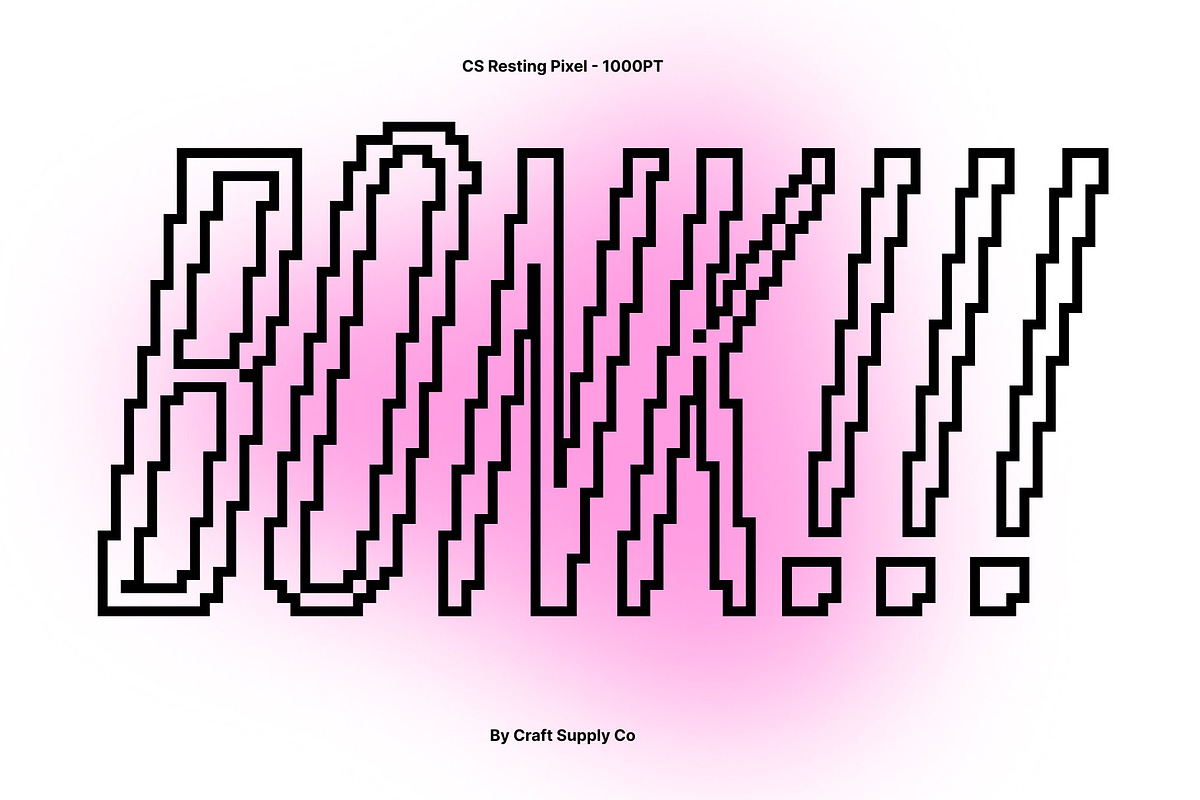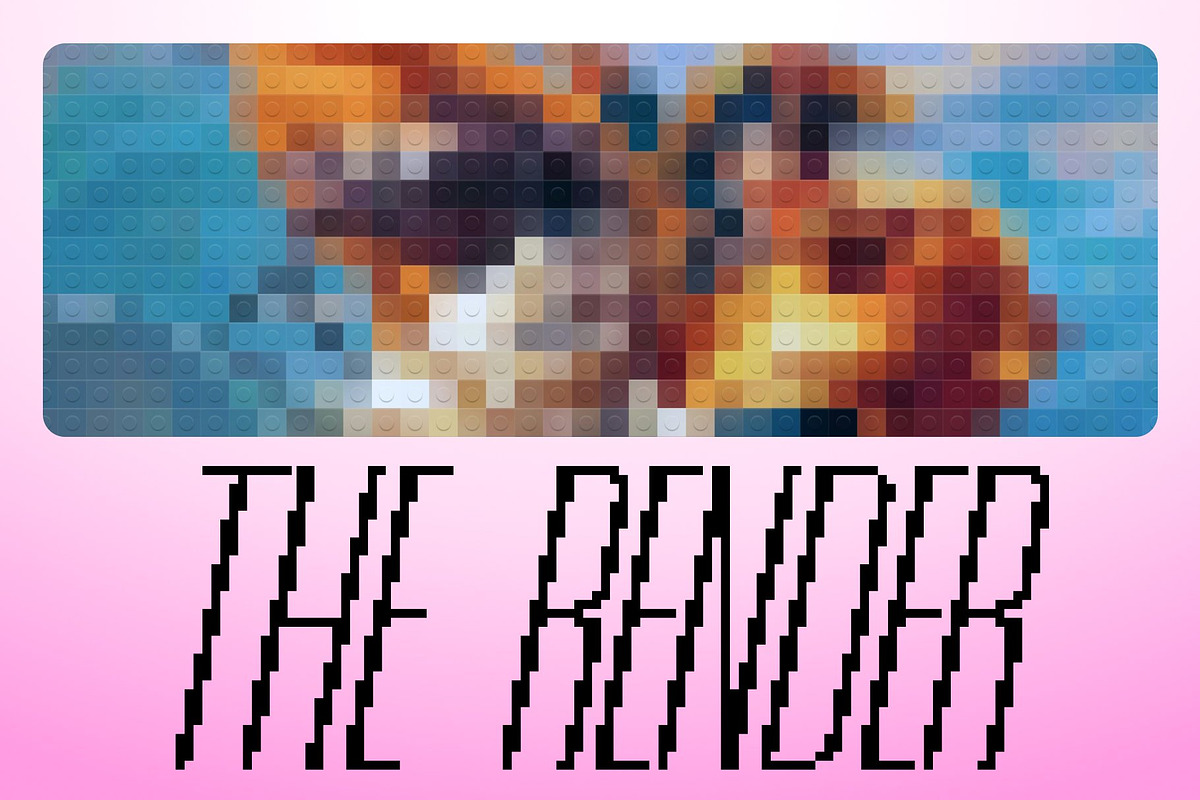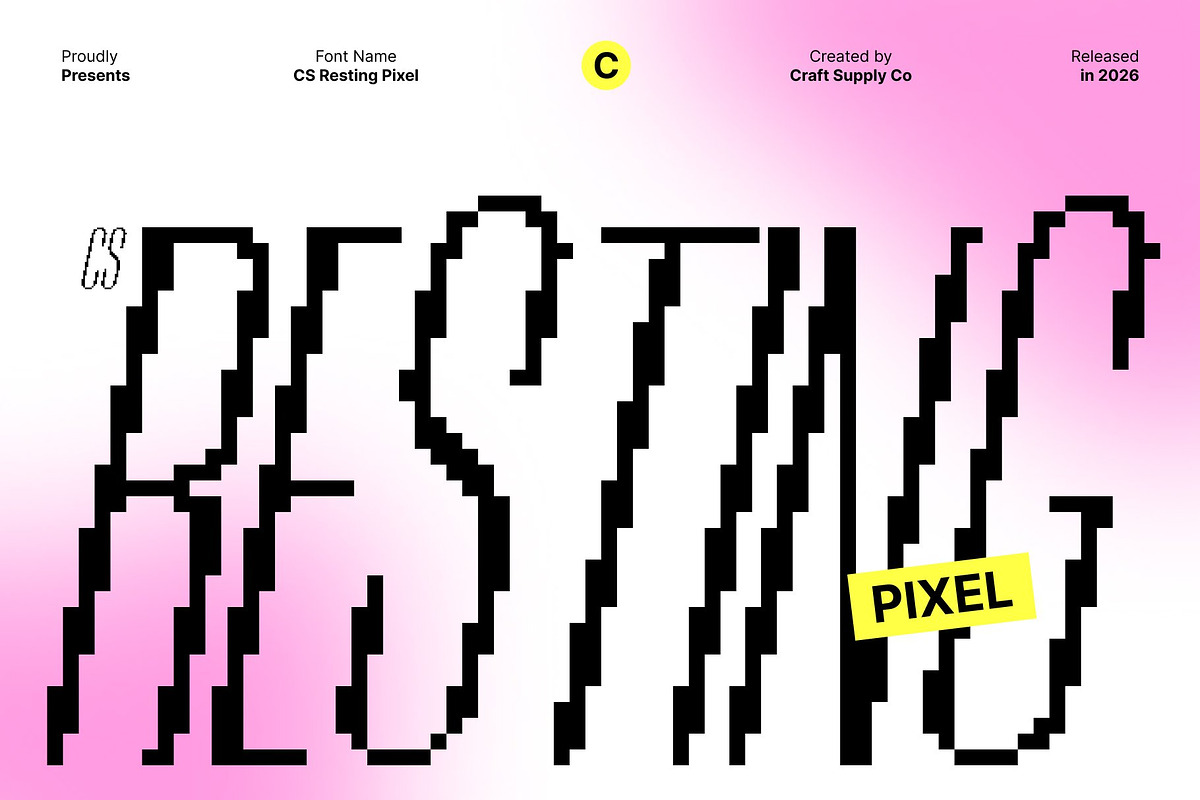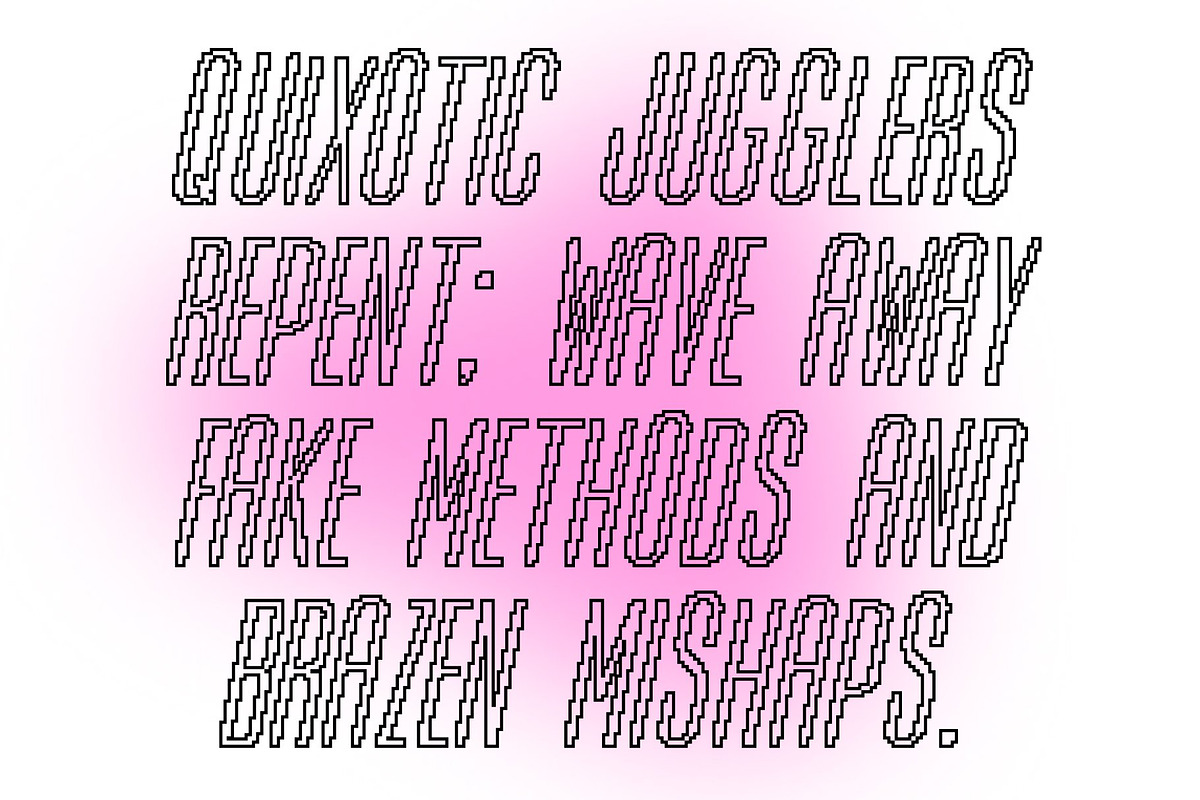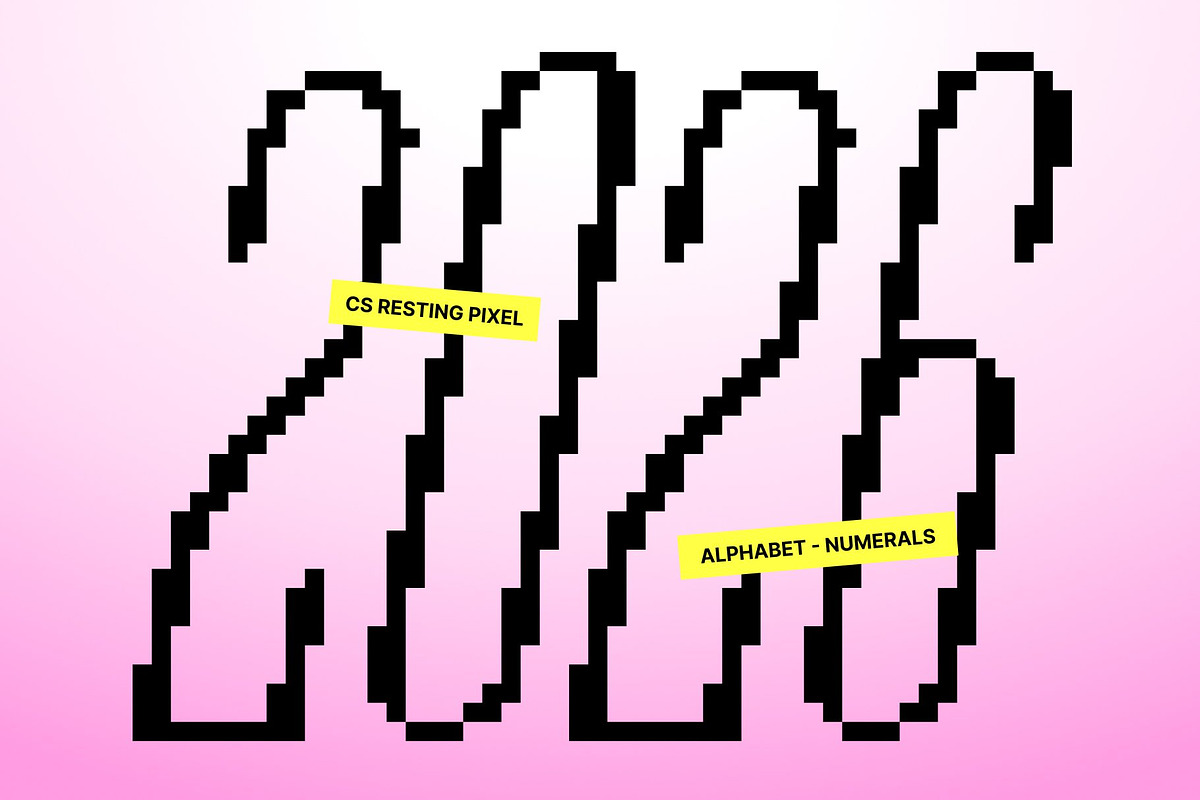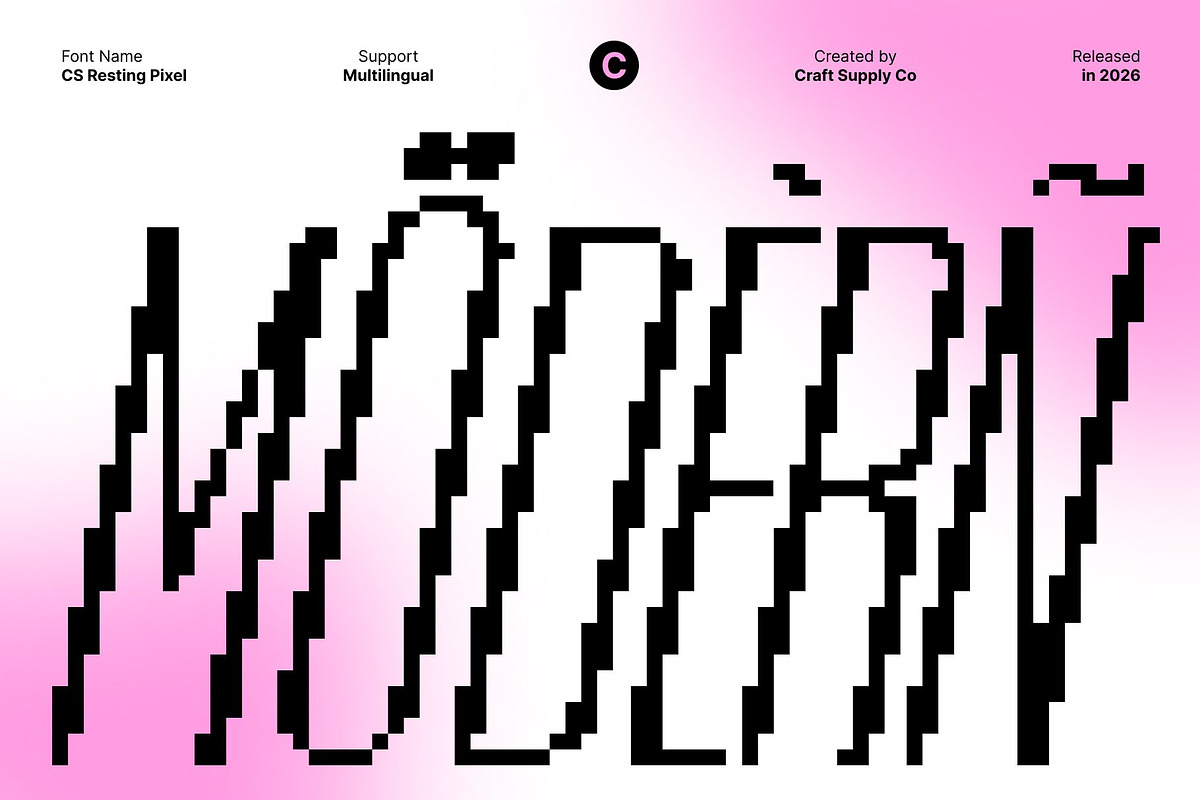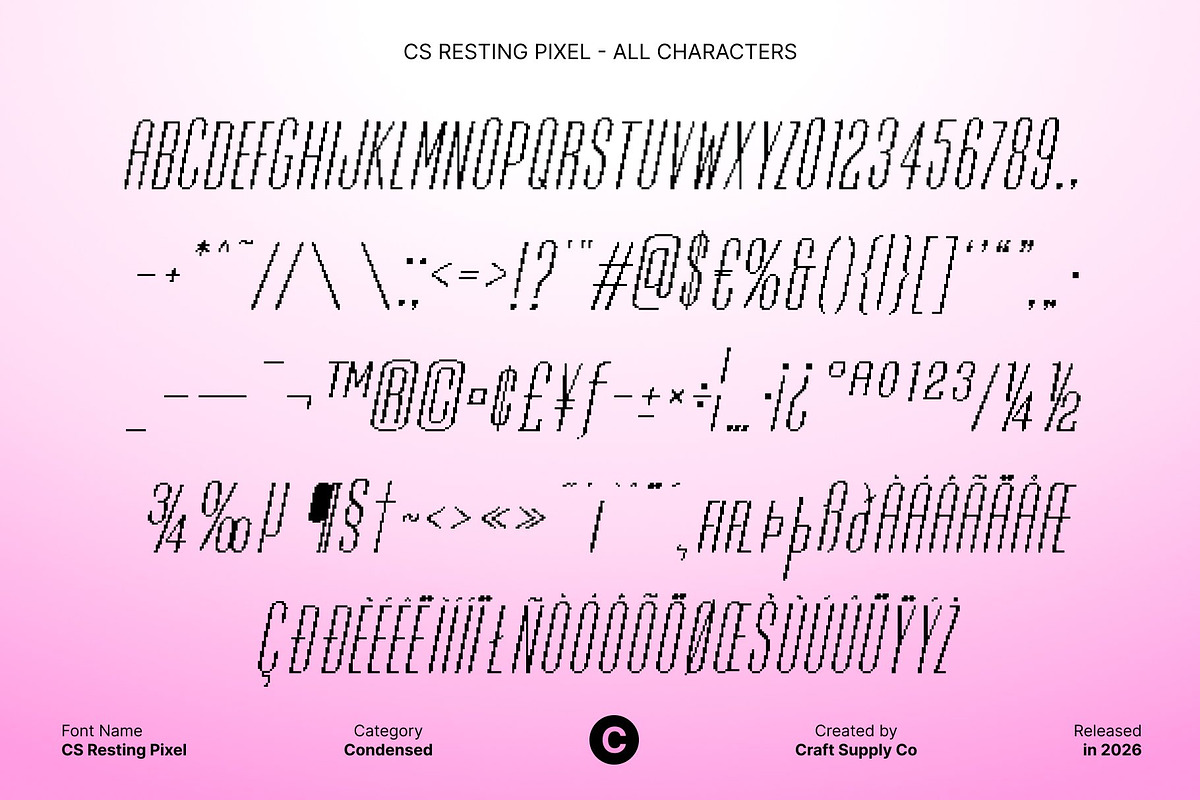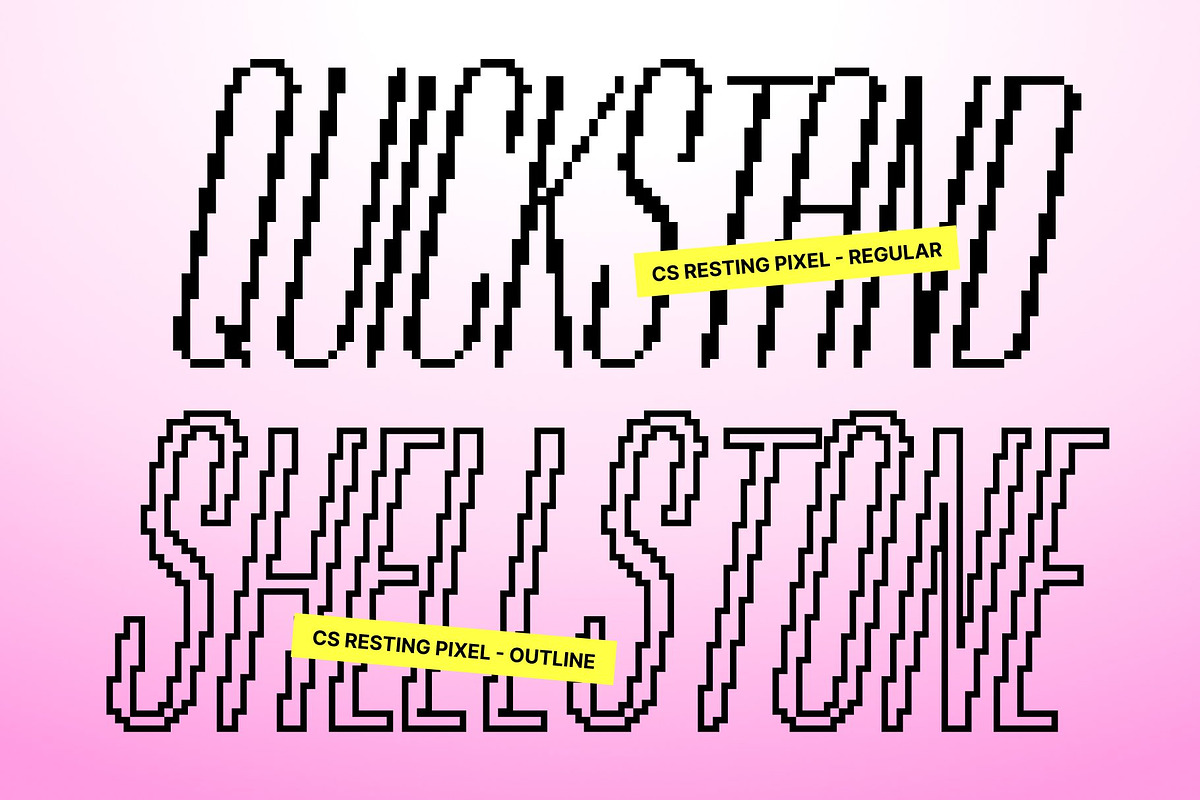
CS Resting Pixel
CS Resting Pixel – Condensed Sans Serif: Compact Strength with Modern Appeal
Modern Condensed Sans Serif with Pixel Precision This is a compact condensed sans serif font designed for confident typography in tight spaces, refined with a distinctive pixel structure. Its clean lines and contemporary construction deliver strong visual impact, while the pixel detailing adds a sharp digital texture that feels modern, and visually striking.
Powerful Readability in Limited Space With its condensed proportions, this font maximizes space efficiency without sacrificing clarity. Each letter is carefully balanced within a pixel grid, ensuring consistent rhythm and excellent legibility across headlines, posters, and digital interfaces. The structured pixel style enhances visibility, even at smaller sizes.
Sleek Minimalism with a Digital Edge Blending modern minimalism with retro-digital character, this font delivers a sleek and professional look with added personality. Its simplified letterforms feel clean and contemporary, while the pixel construction introduces a subtle old-technology vibe that sets it apart from standard condensed fonts.
Ideal for Headlines, Branding, and Tech-Inspired Design This font excels in high-impact applications such as branding, posters, digital campaigns, UI elements, and editorial layouts. Perfect for tech visuals, retro-computer aesthetics, and modern graphic design, it delivers compact strength and unmistakable presence wherever space is limited but impact matters.
- CS Resting Pixel Regular
- CS Resting Pixel Outline